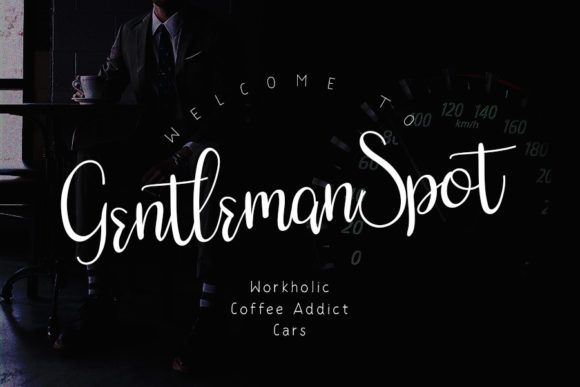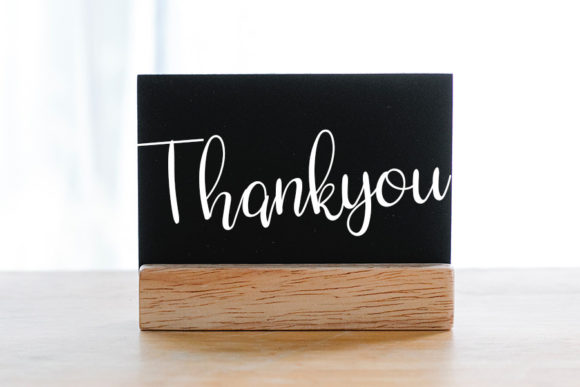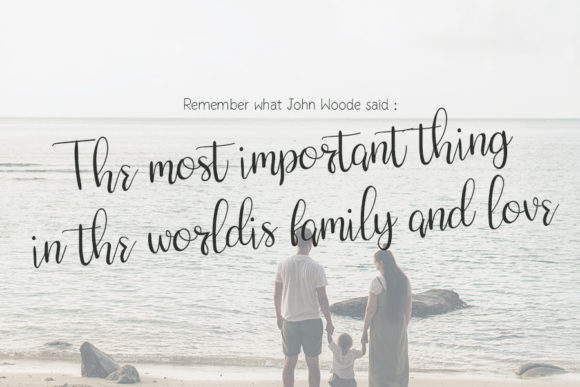
The Sweet Charm of Bookworm Font: A Designer’s Delight
I’ll never forget the time I was working on a project for a client who wanted a elegant and refreshing look. I had spent hours scouring the internet for the perfect font, but nothing seemed quite right. That was when I stumbled upon Bookworm Font, a charming and sweet handwriting font that exuded elegance and class. It was love at first sight! 💕
So, what makes Bookworm Font so special? Let’s dive into the good stuff and a few quirks I’ve discovered.
• ✨ Elegant and refined handwriting style that’s perfect for designs that need a touch of sophistication
• 💫 Beautifully crafted with attention to detail, making it perfect for designs that require a personal touch
• 🎨 Versatile and works well with a variety of design styles, from modern to vintage
While Bookworm Font is an amazing addition to any design project, there are a few things to keep in mind:
• 🤔 Some of the letters may appear a bit too ornate or curly for very formal or corporate designs
• ⚠️ The font may not be suitable for very long blocks of text, as it can become a bit tiresome to read
The Backstory of Bookworm Font
Bookworm Font was created by a talented designer who wanted to craft a font that would evoke a sense of elegance and refinement. The designer drew inspiration from classic handwriting styles and infused them with a modern twist. The result is a font that’s both timeless and fresh.
Font Name Bookworm Font
Author Creassion Studio
Q: What is Bookworm Font?
A: Bookworm Font is a charming and sweet handwriting font that exudes elegance and class.
Q: Is Bookworm Font easy to read?
A: Yes, Bookworm Font is highly legible, even at small font sizes. However, it’s best suited for short to medium-length text blocks.